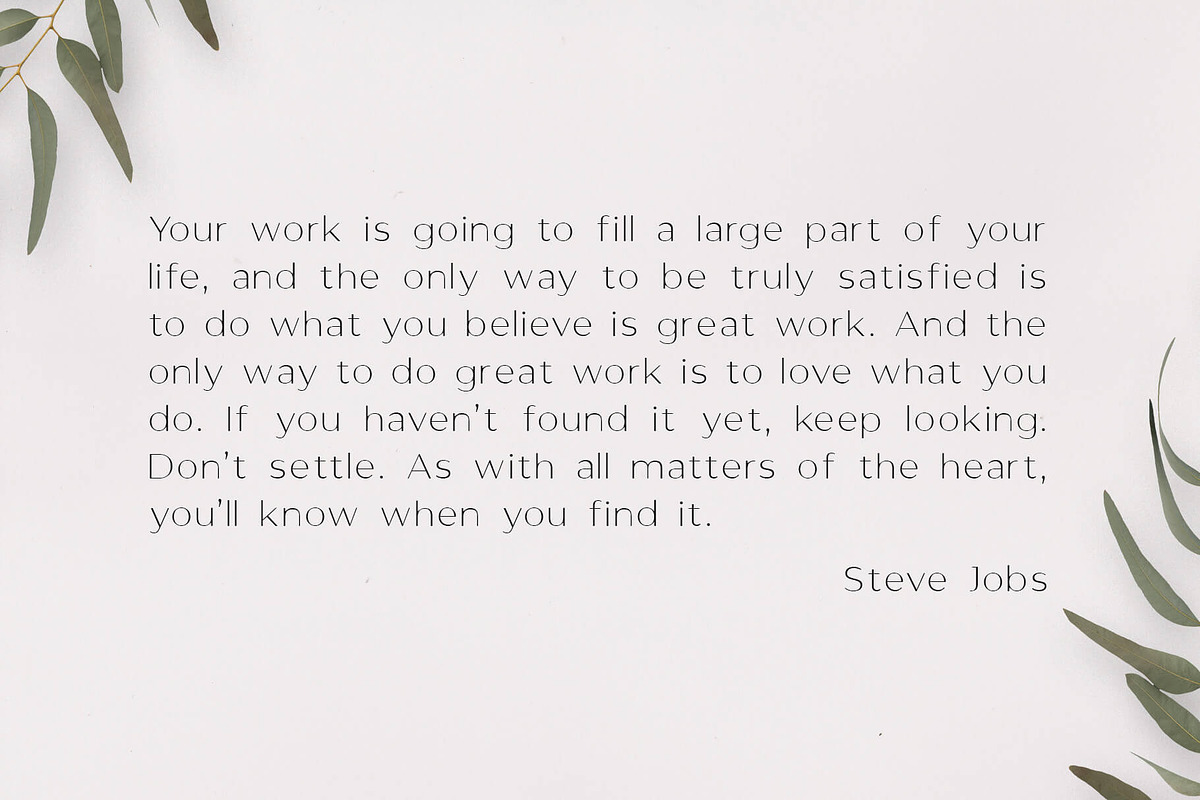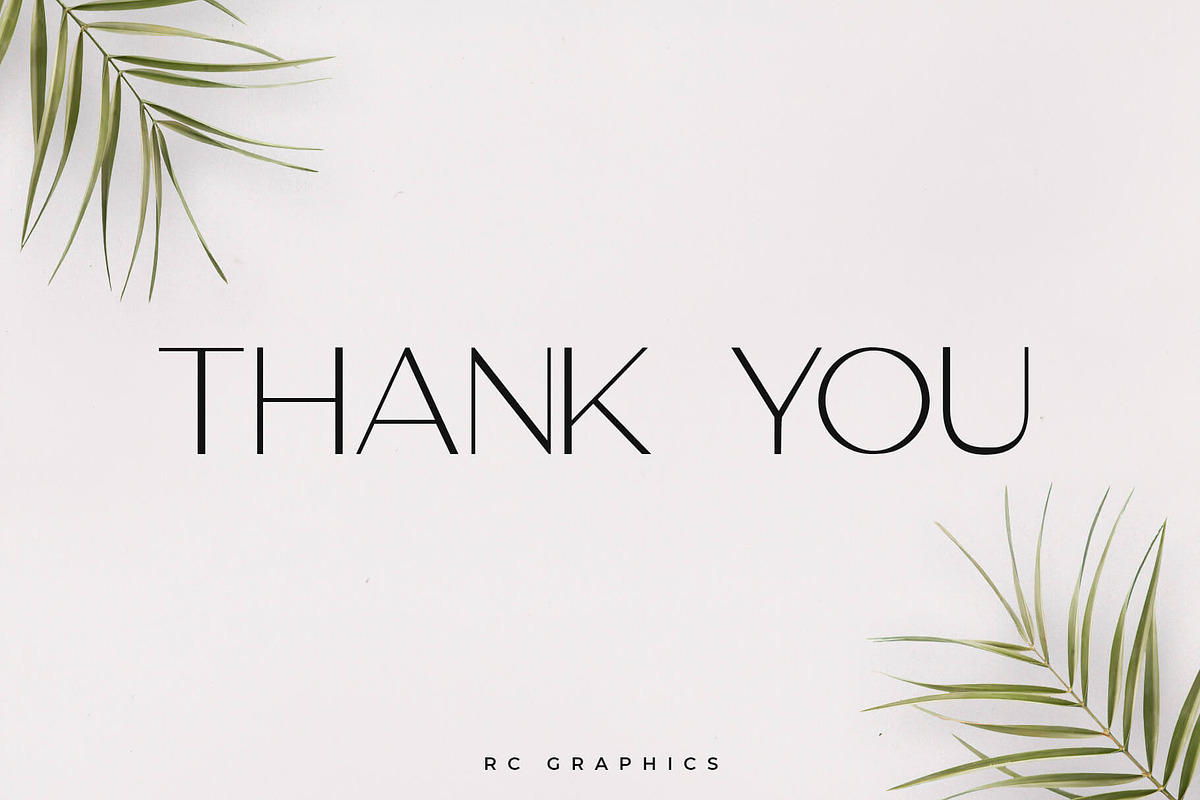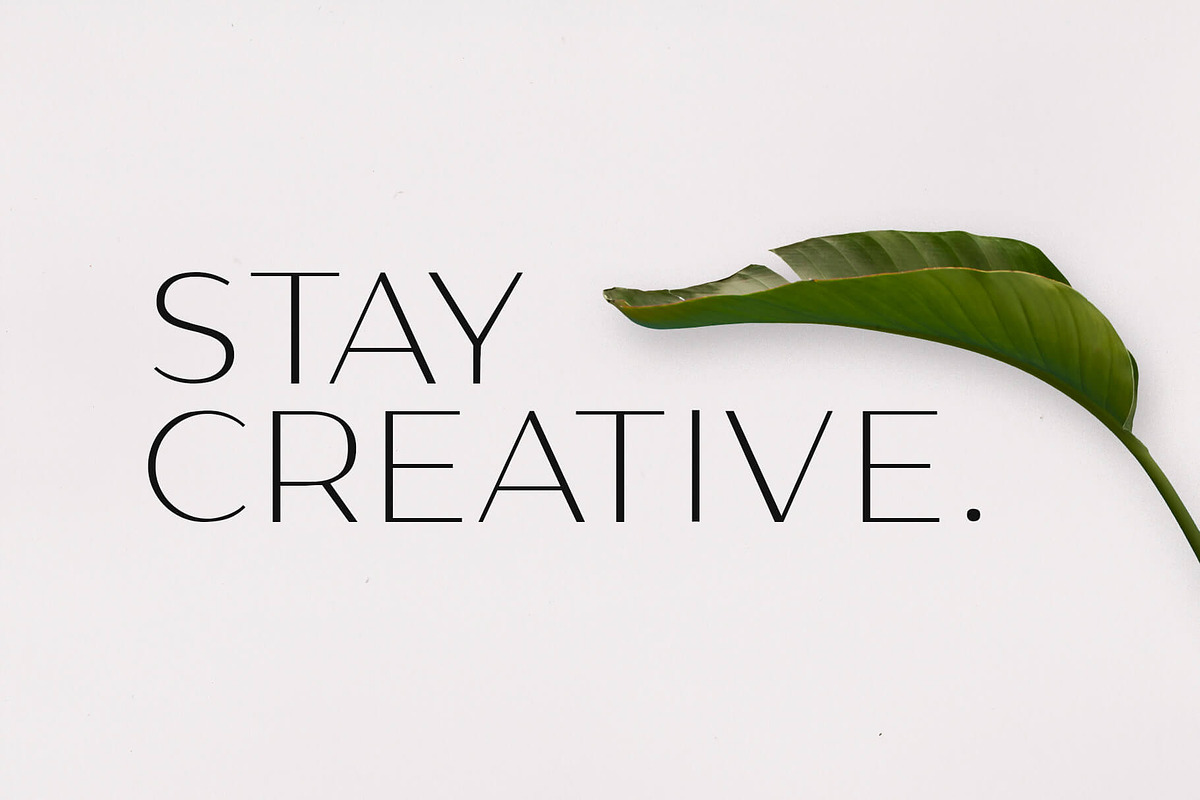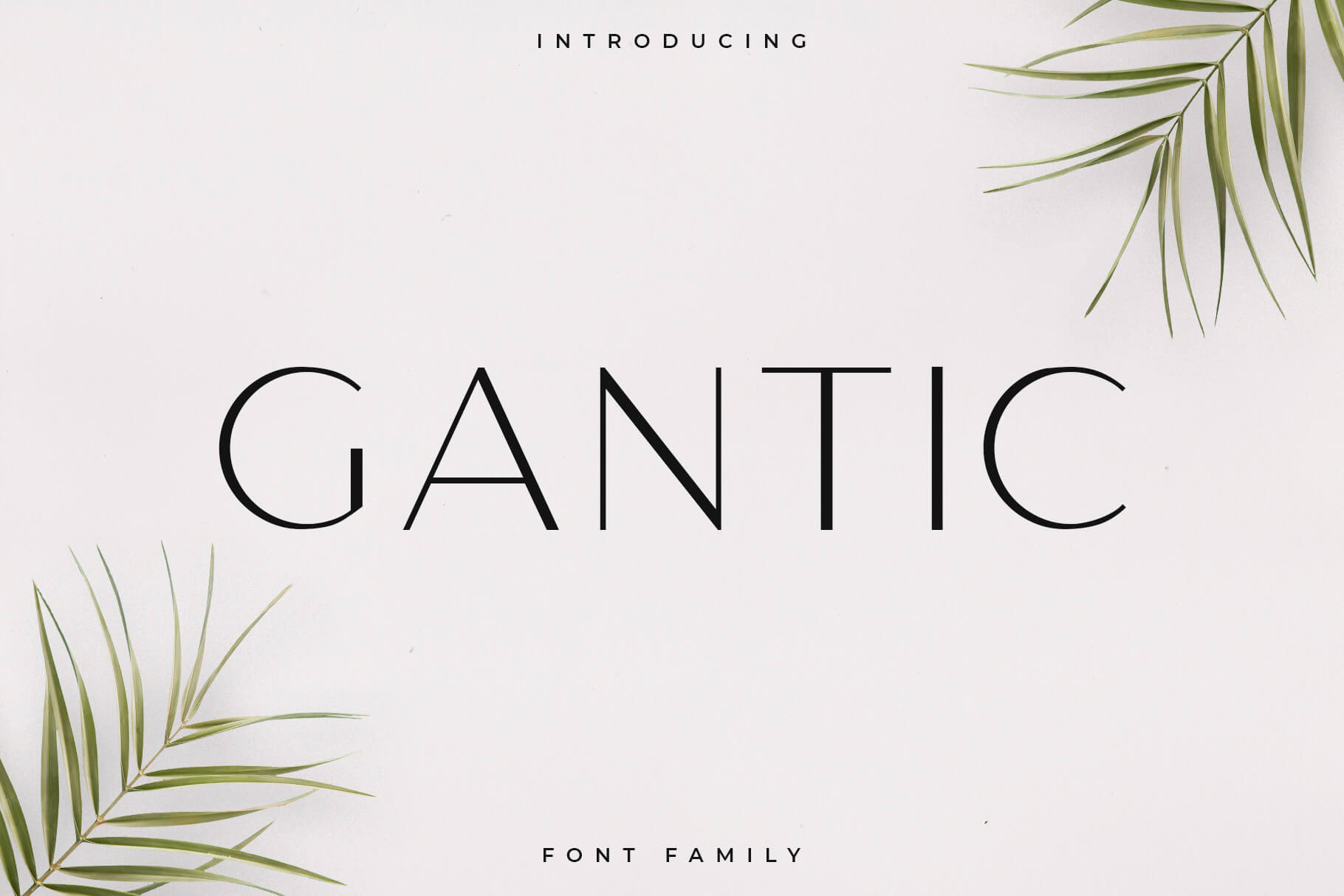
Gantic Font Family - Sans Serif
Gantic is an elegant and clean sans serif font. It’s a versatile font family designed for strong, classic branding. Gantic is perfect for any branding, logos, magazines, videos, weddings, quotes, print, product packaging, website, clothing designs and much more.
- Uppercase letters
- Lowercase letters
- Light
- Bold
- Outline
- Multilingual (Foreign language characters)